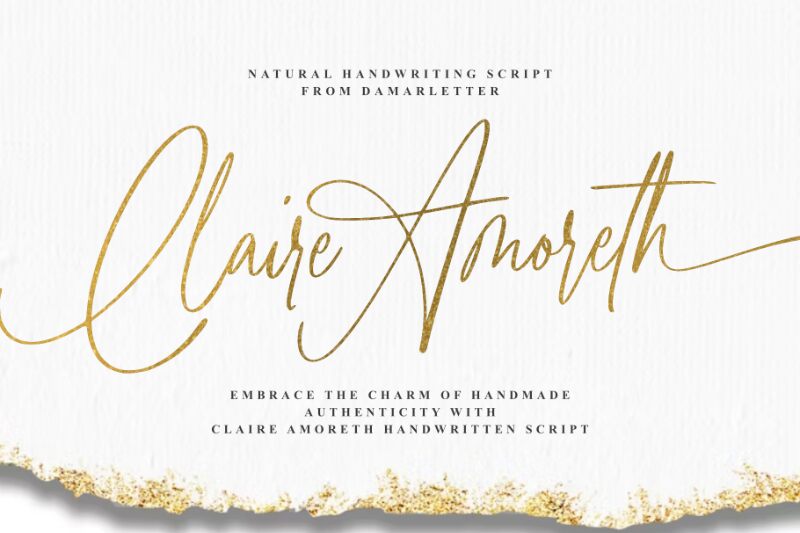
Claire Amoreth font, designed by Ardian Nuvianto of Damarletter, exudes elegance with its graceful calligraphic style. The light font weight creates a delicate, airy feel, inviting an intimate connection with the viewer. Each stroke flows fluidly, capturing a sense of artistry that is both sophisticated and approachable.
Visually striking yet refined, Claire Amoreth is perfect for a variety of applications-from romantic wedding invitations to chic branding endeavors. Its exquisite curves and sweeping ligatures add an enchanting touch to personal notes or artisan product labels. This font effortlessly enhances any design with charm and elegance, making it an exceptional choice for anyone looking to convey warmth and creativity in their projects.